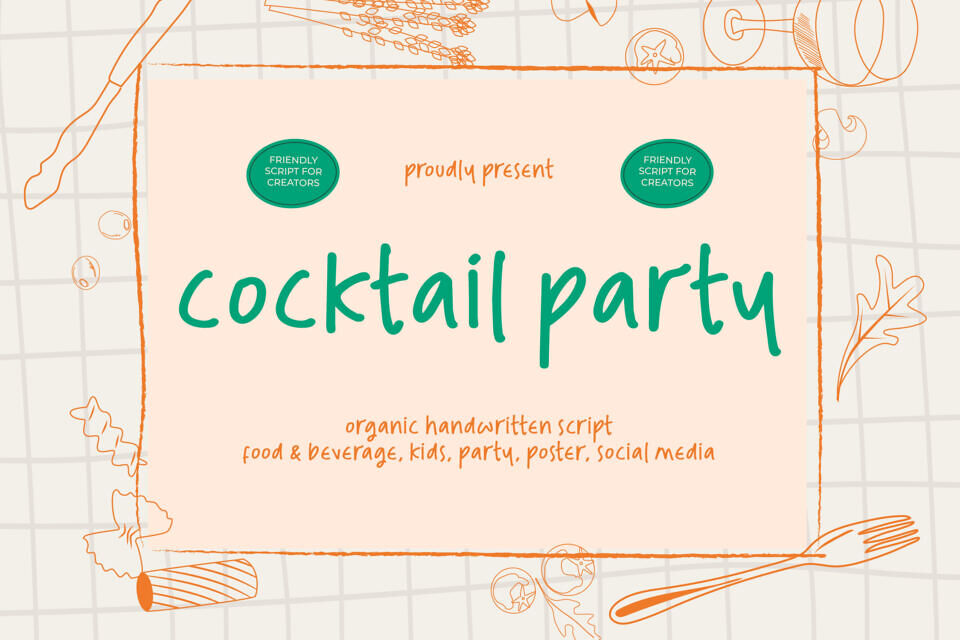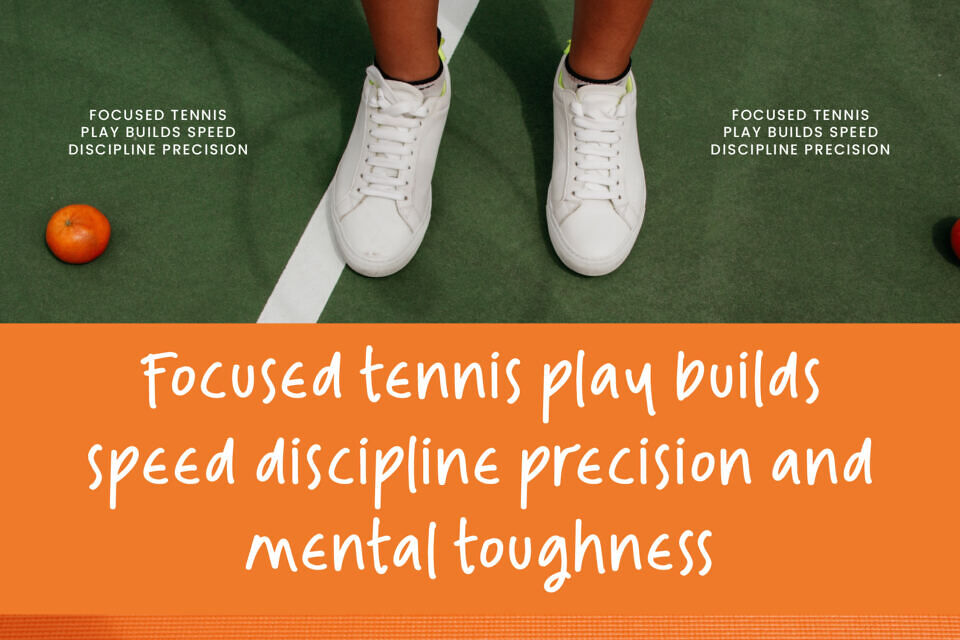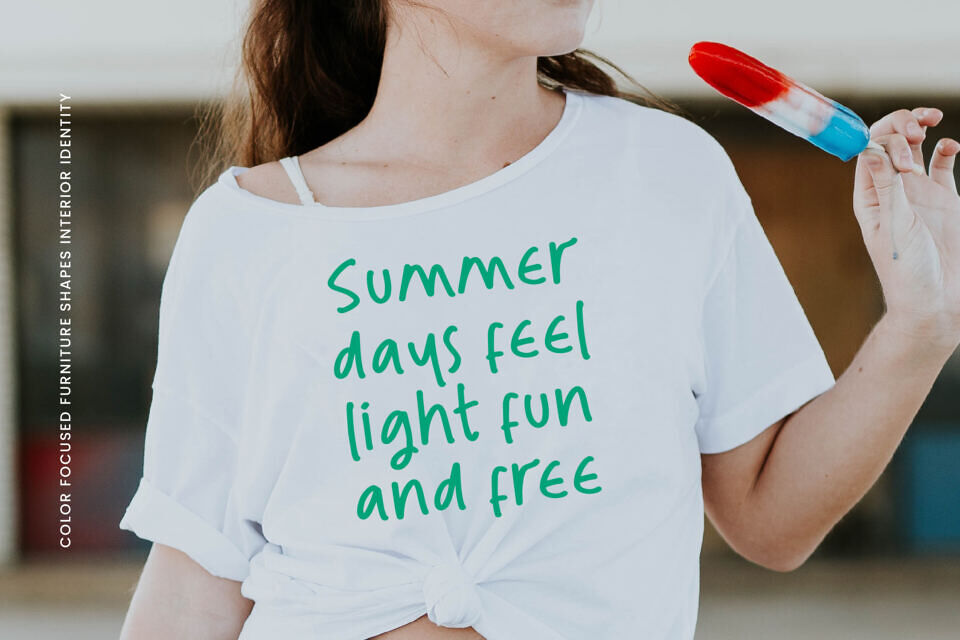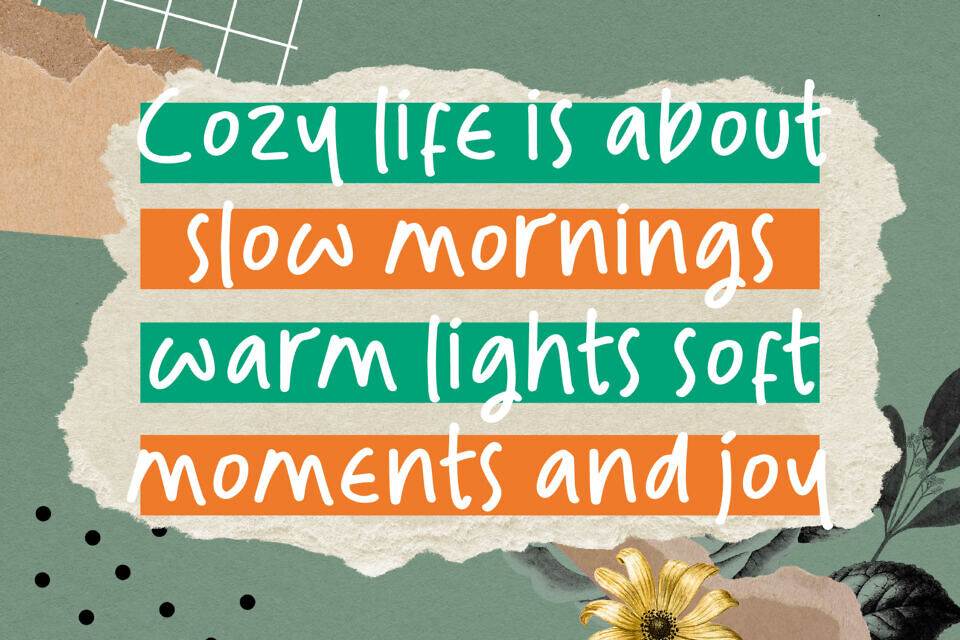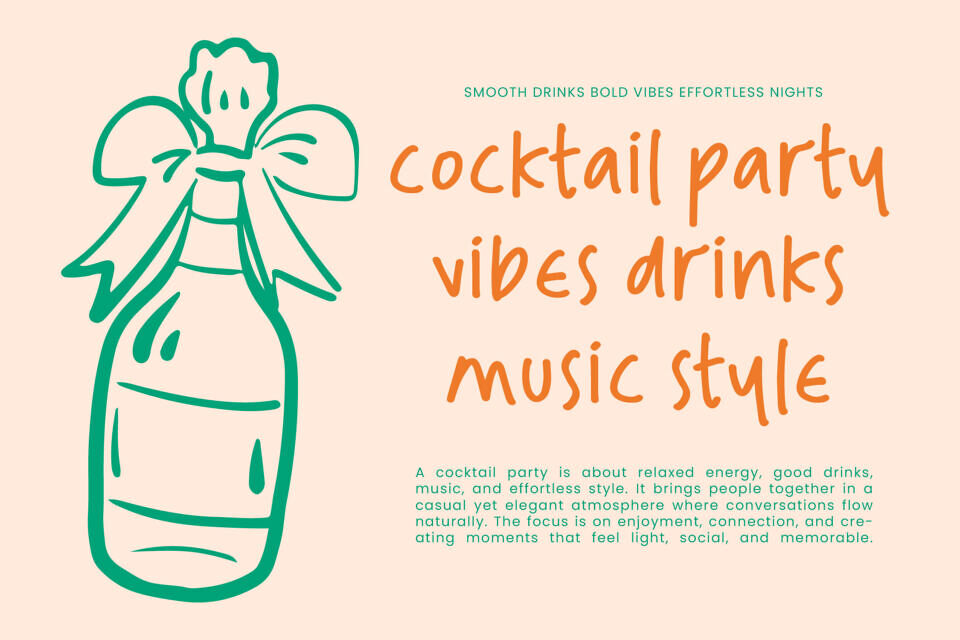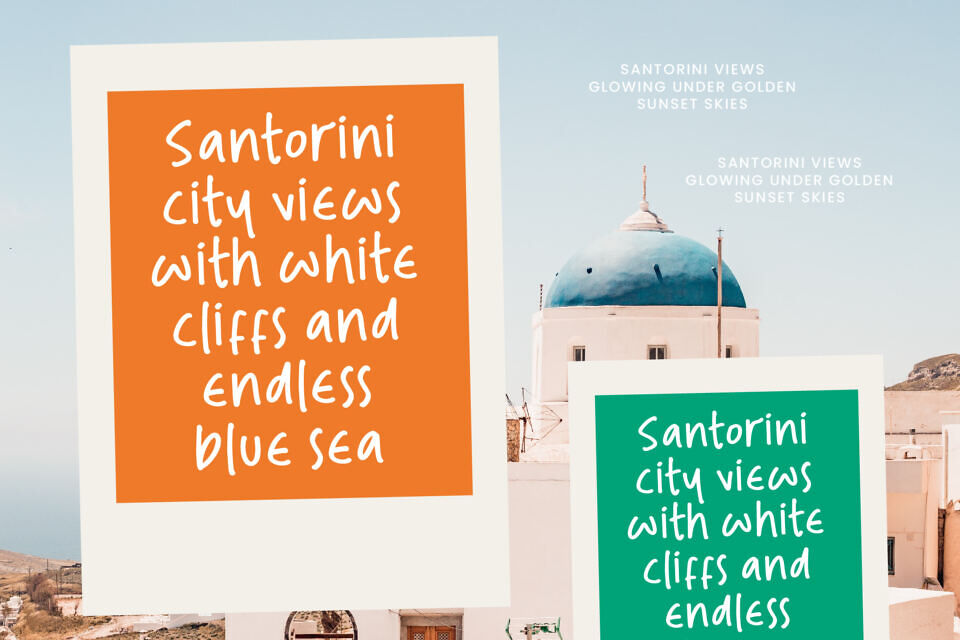
Cocktail Party is a fun and friendly handwritten script font with a natural, organic feel. Its smooth strokes and playful character make it perfect for creating designs that feel warm, authentic, and approachable.
Designed to capture the charm of real handwriting, Cocktail Party works beautifully for food and beverage branding, café menus, product packaging, social media graphics, children’s projects, party invitations, and creative marketing materials. Whether you’re building a brand or creating eye-catching content, Cocktail Party adds a fresh and personal touch to every design.